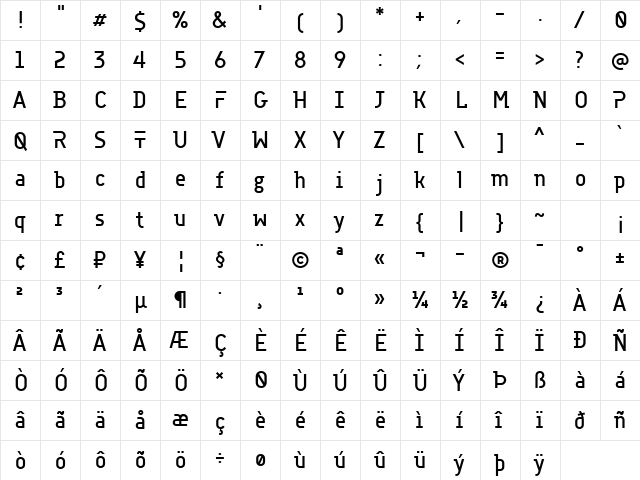
Accuratist Regular
| Foundry | Elena Shkerdina |
| Designer | Elena Shkerdina (Art-director Jovanny Lemonad) |
Design Context for Accuratist Typeface
Accuratist offers clean, dependable letterforms without strong stylistic allegiance, making it a practical choice for designers who need flexibility.
Pro Tip: Use Accuratist in both headline and body roles to test its range before committing to a single application.